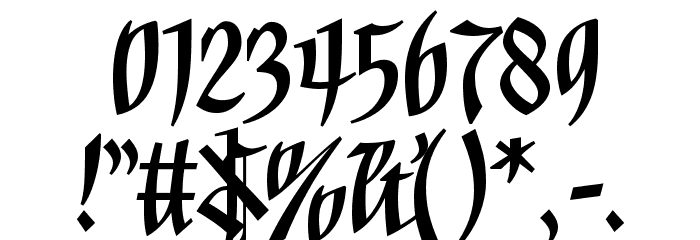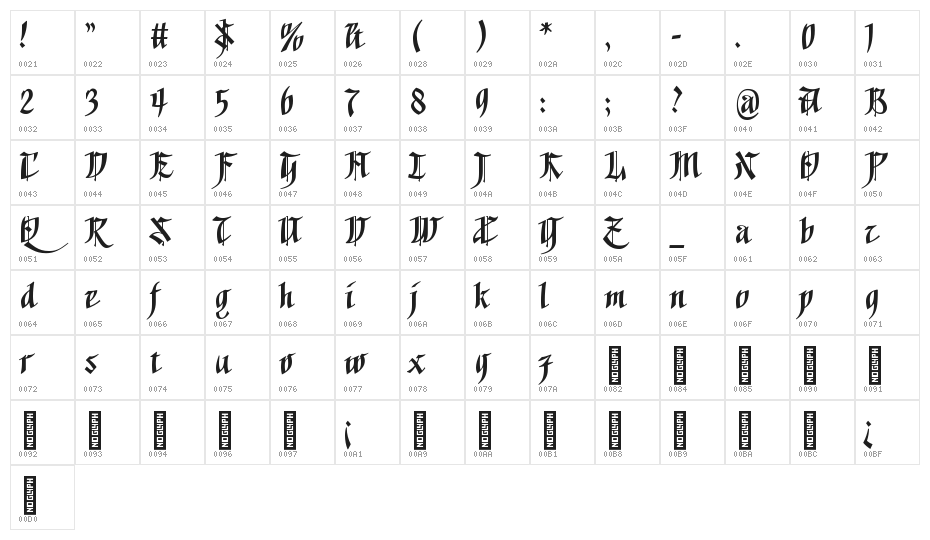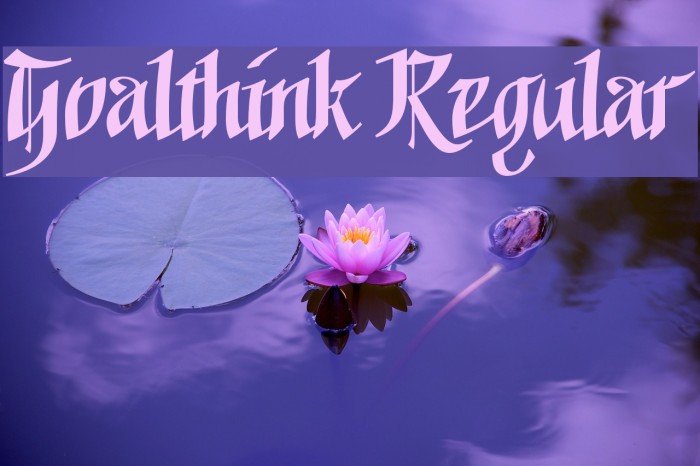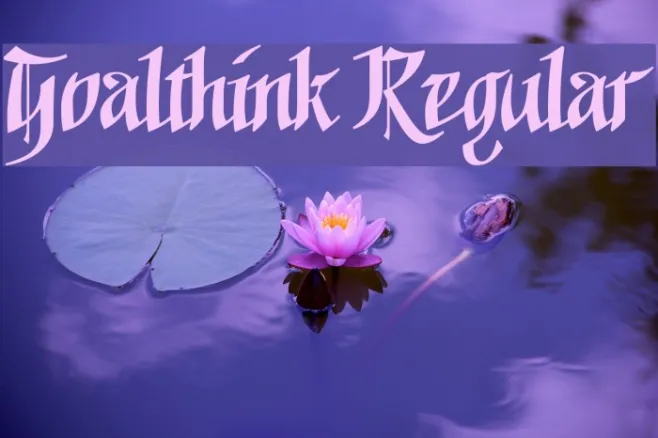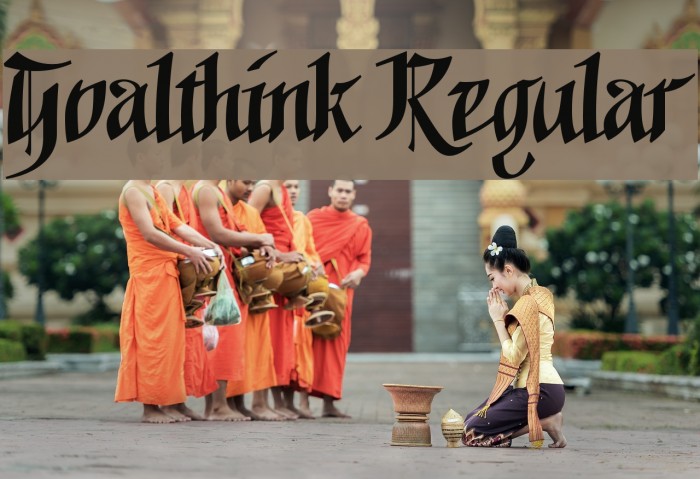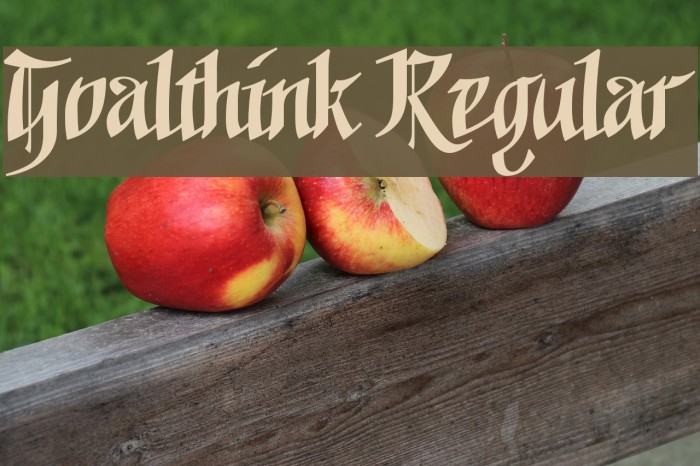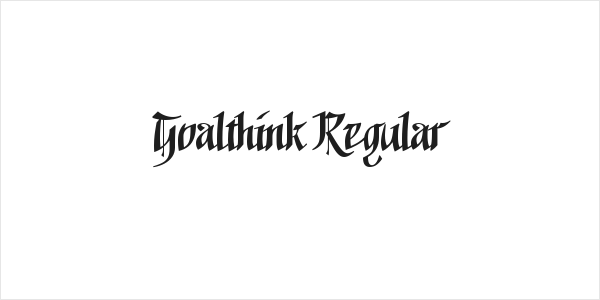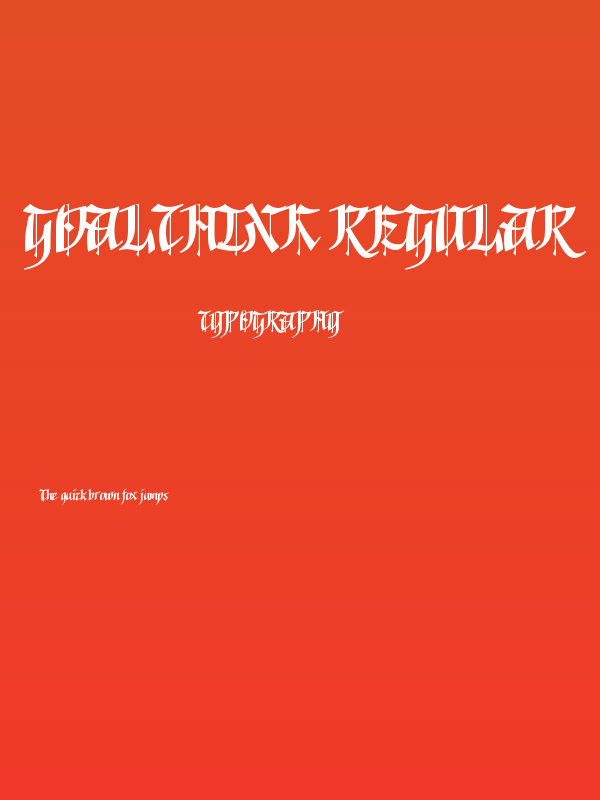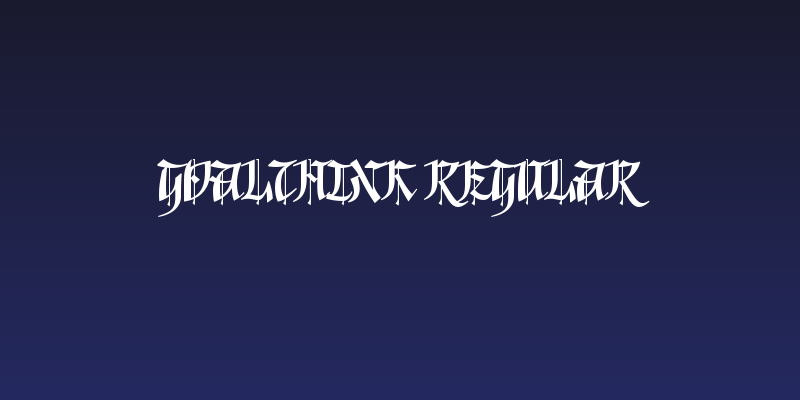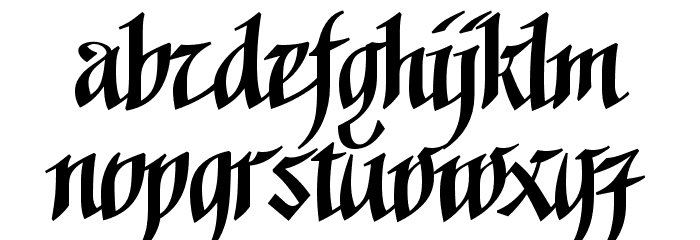
Goalthink Regular Font
Goalthink Regular Description
This font exhibits a bold and dramatic blackletter style, characterized by its sharp, angular strokes and intricate detailing. The uppercase letters are particularly ornate, with elaborate flourishes that give a sense of historical elegance. The lowercase letters maintain the same level of detail, providing a cohesive look across the typeface. Numbers and special characters are designed with the same attention to detail, ensuring consistency throughout. This font is reminiscent of medieval script, making it ideal for projects that require a touch of antiquity and sophistication.